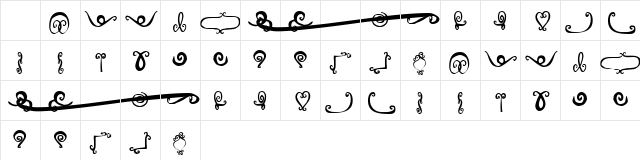
Curly's Curls Regular Free Font
Curly's Curls Regular
Design Context for Curly's Curls
Curly's Curls is a composed and adaptable typeface that performs quietly and consistently across a wide range of design contexts.